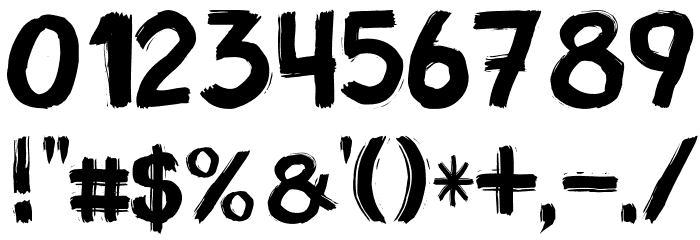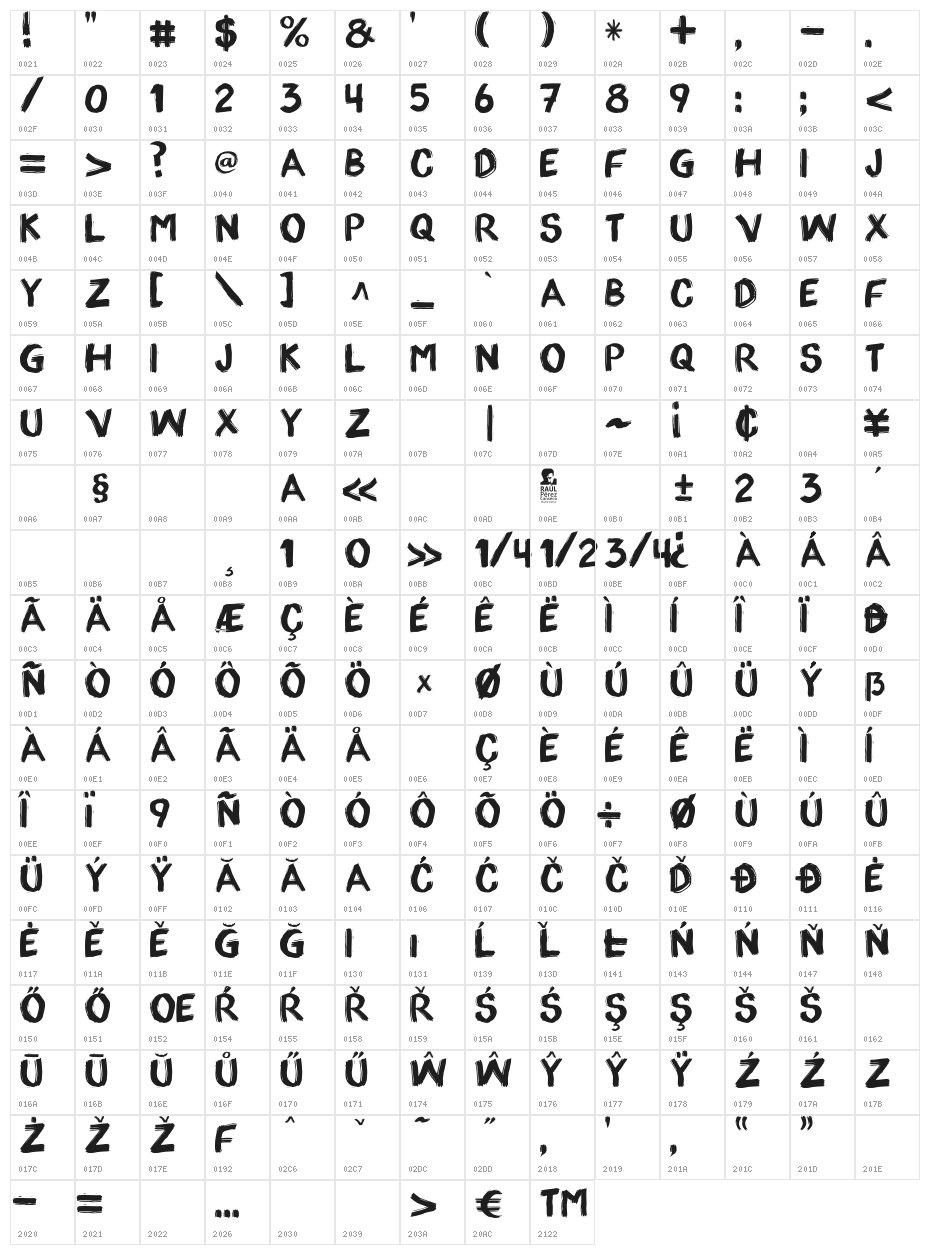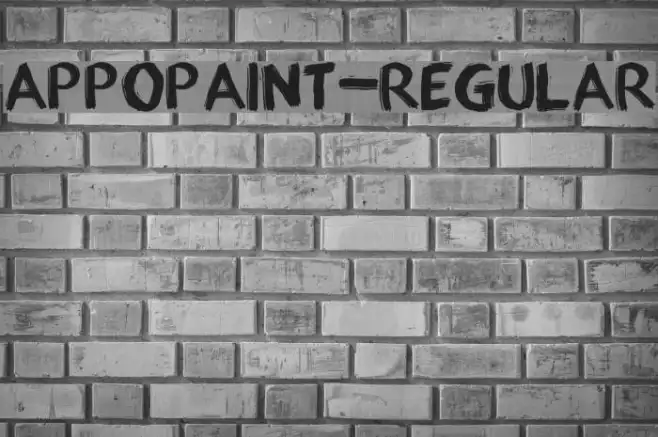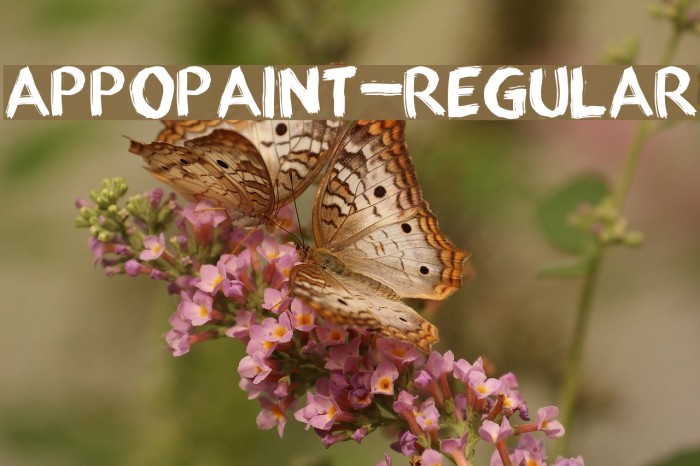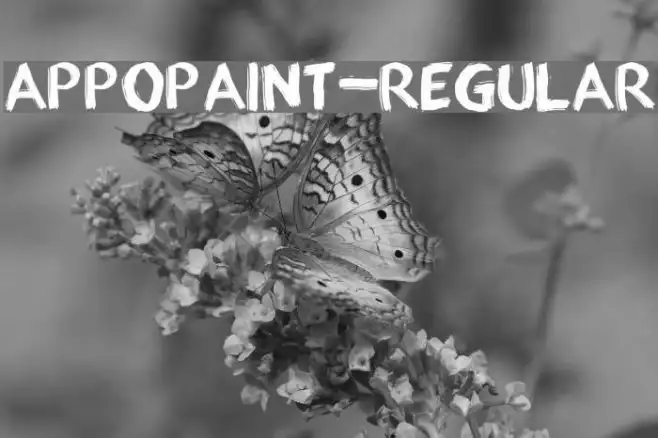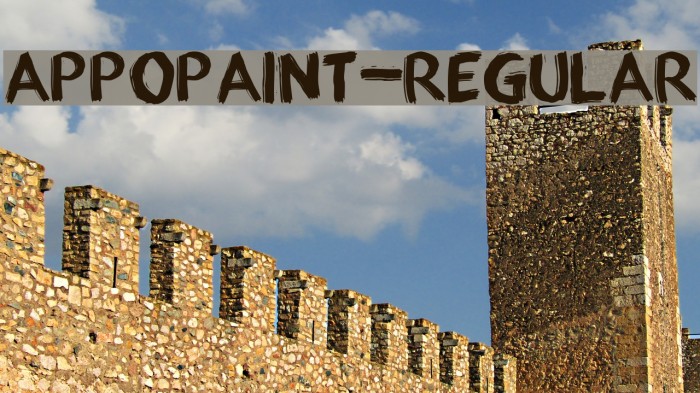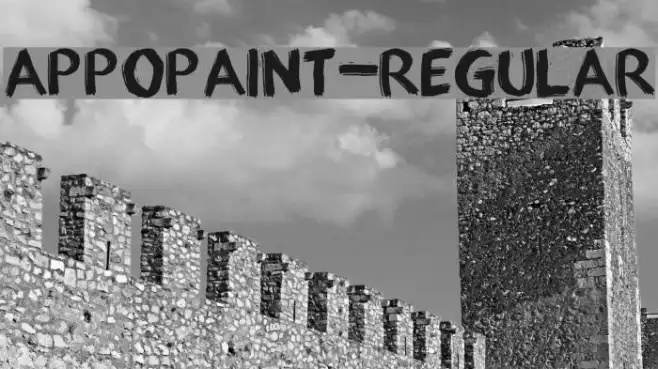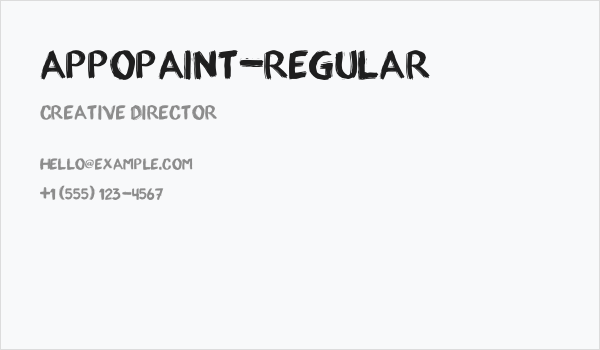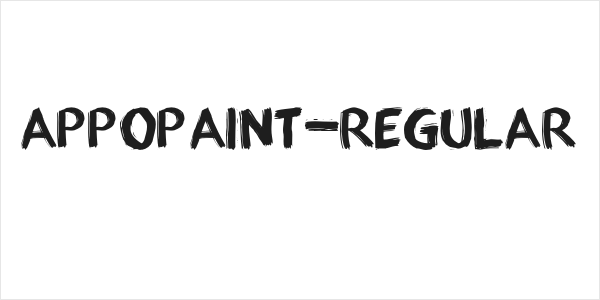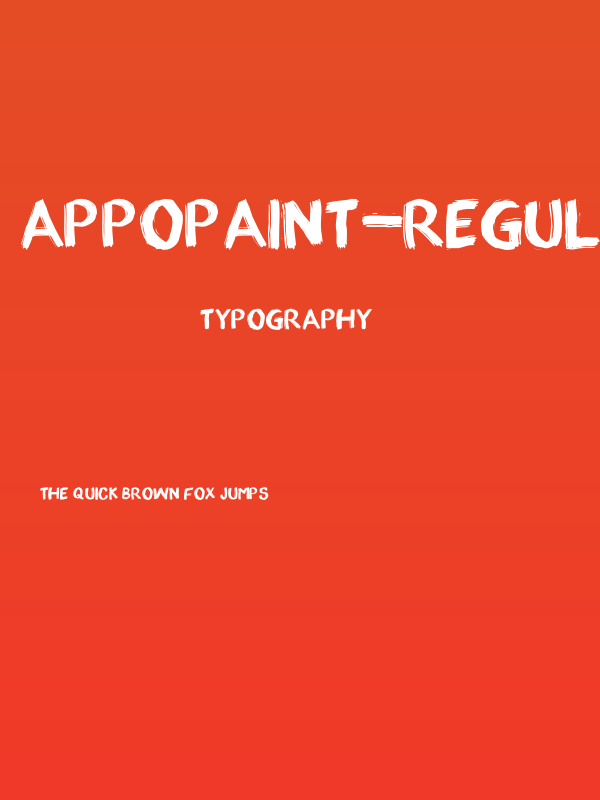
appopaint-Regular Font
appopaint-Regular Description
This font features a bold and expressive brushstroke style, giving it a dynamic and energetic appearance. The characters are crafted with a rough, hand-painted texture, which adds a sense of movement and artistic flair. The uppercase and lowercase letters maintain a consistent style, with slightly irregular edges that enhance the handcrafted feel. The numerals and special characters follow the same aesthetic, ensuring a cohesive look across all text elements. This font's unique style makes it ideal for creative projects that require a touch of personality and vibrancy.
| Overall Style | Artistic, Expressive |
| Proposed Projects | Ideal for posters, album covers, artistic branding, and creative social media graphics. |